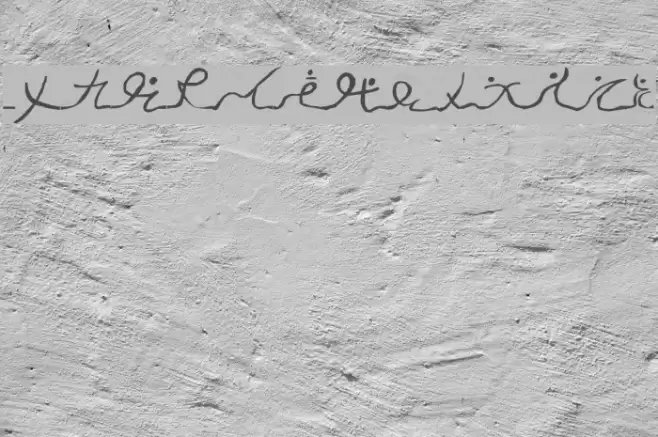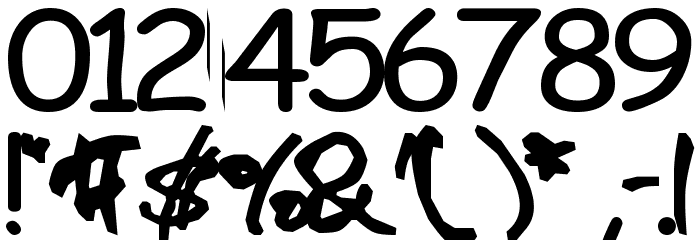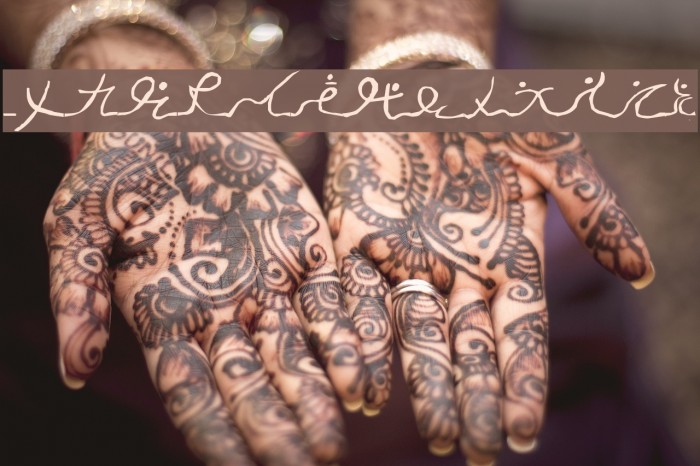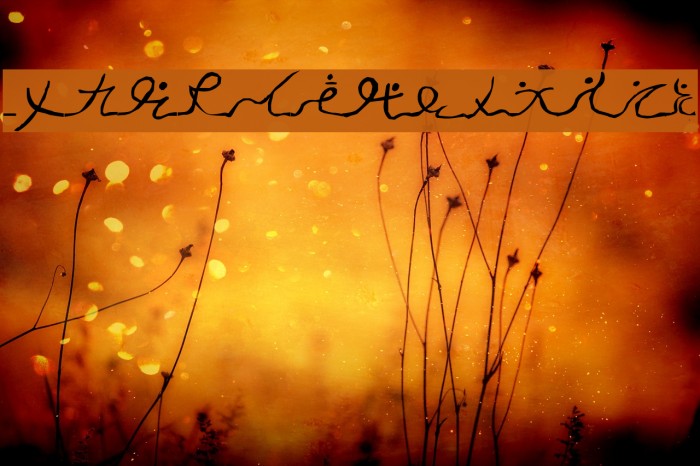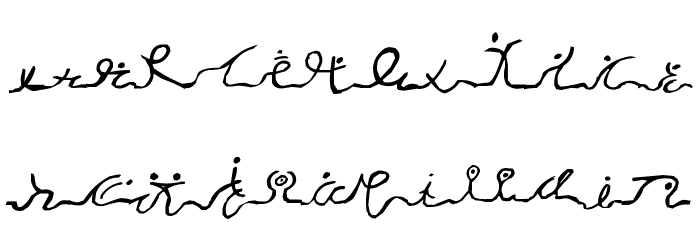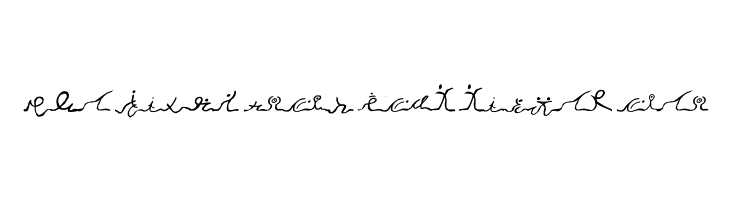
Wizard Runes-1 Font
Wizard Runes-1 Description
This font features a mystical and enchanting style, reminiscent of ancient runes or magical scripts. The uppercase and lowercase letters are intricately designed with swirling, flowing lines that give an impression of handwritten calligraphy. The numbers are bold and distinct, contrasting with the delicate nature of the letters. Special characters maintain the whimsical and arcane aesthetic, adding to the font's overall magical theme. This font is perfect for projects that require a touch of fantasy or mystery, such as game design, book covers, or themed event invitations.
A mystical, rune-like font with flowing, calligraphic letters and bold numbers from Handwritten fonts.
- Proposed Projects: Ideal for fantasy-themed projects, game design, book covers, and event invitations.
- Overall Style: Mystical, Fantasy
- Use Case: Logos, Headlines, Decorative text